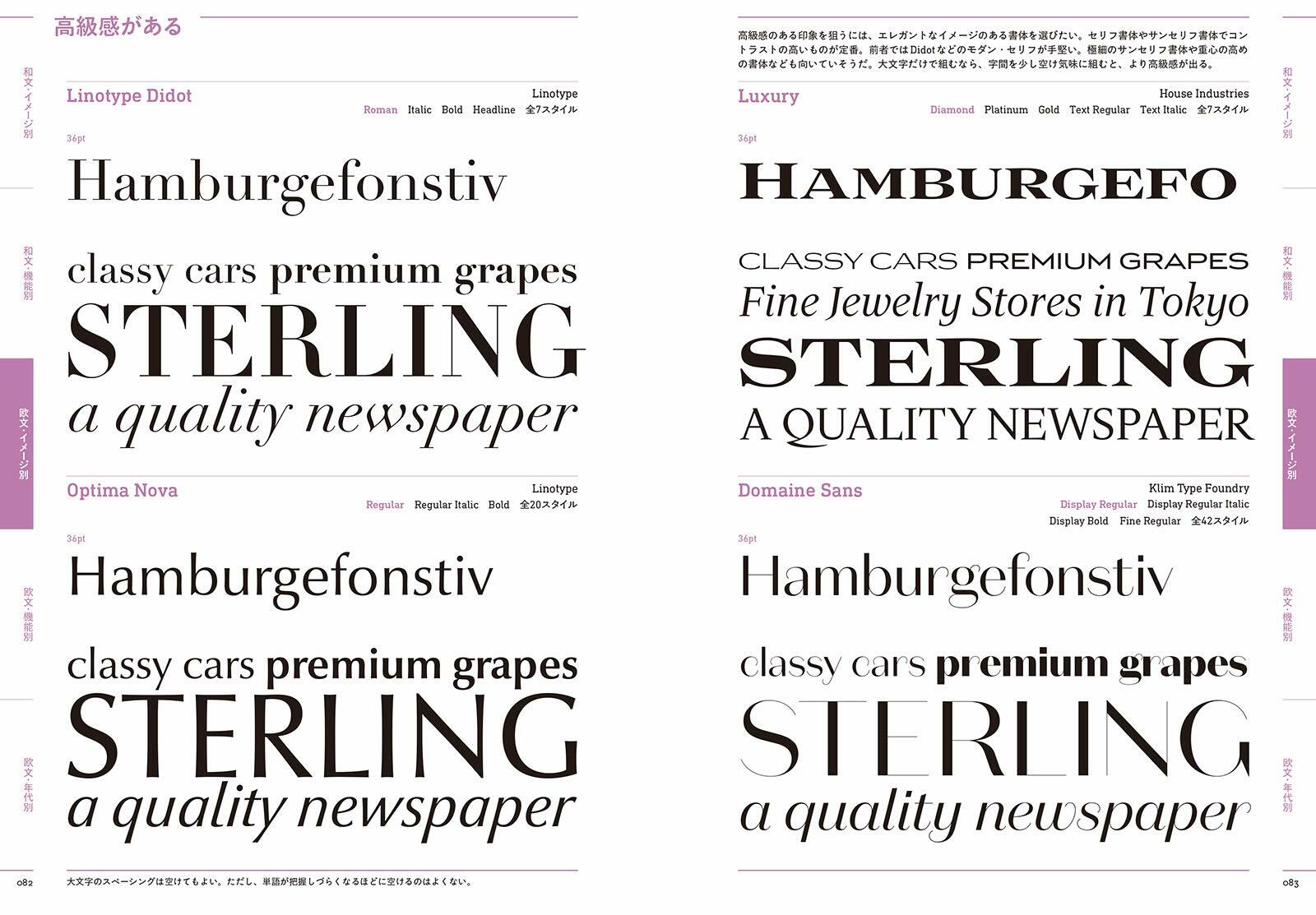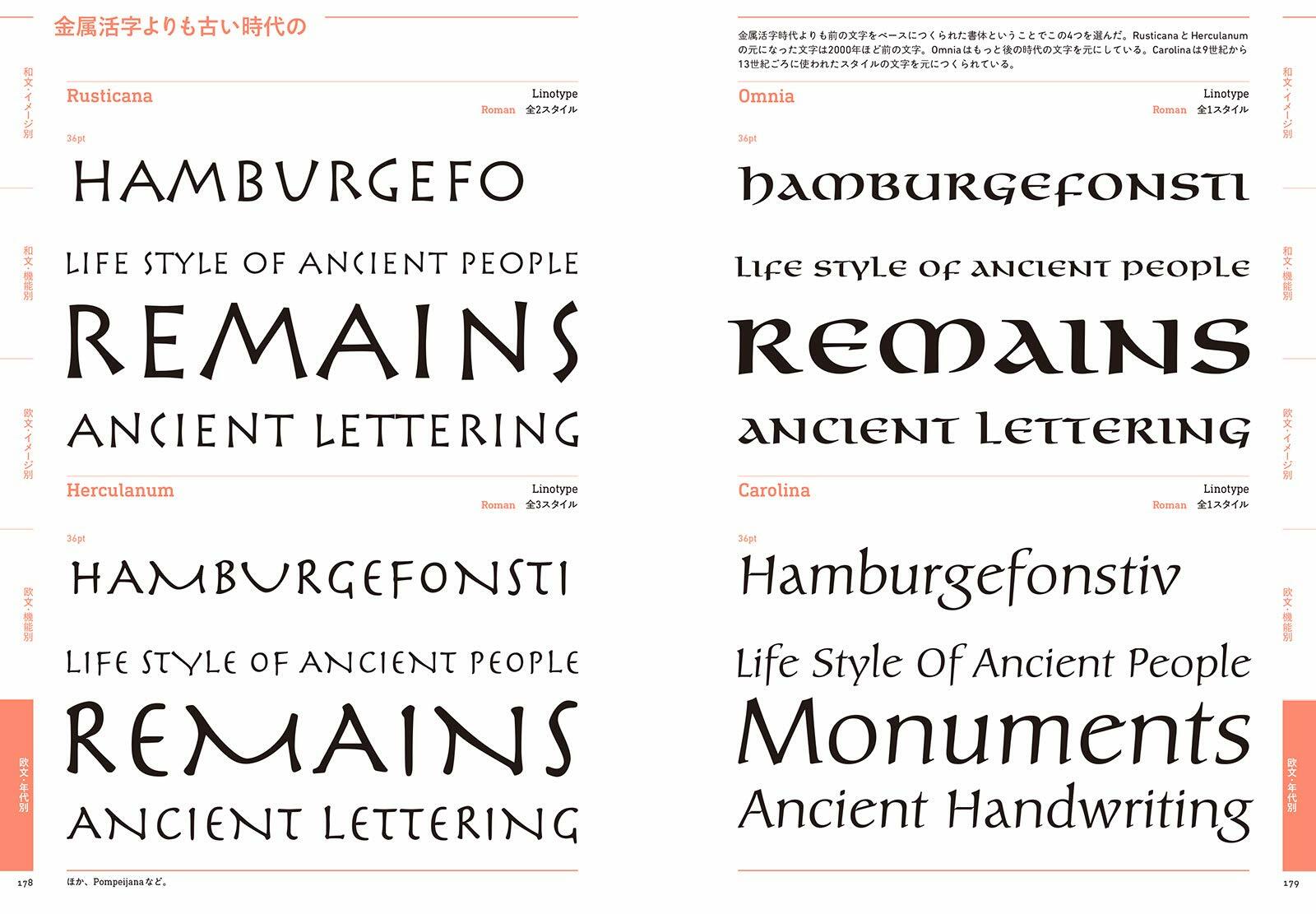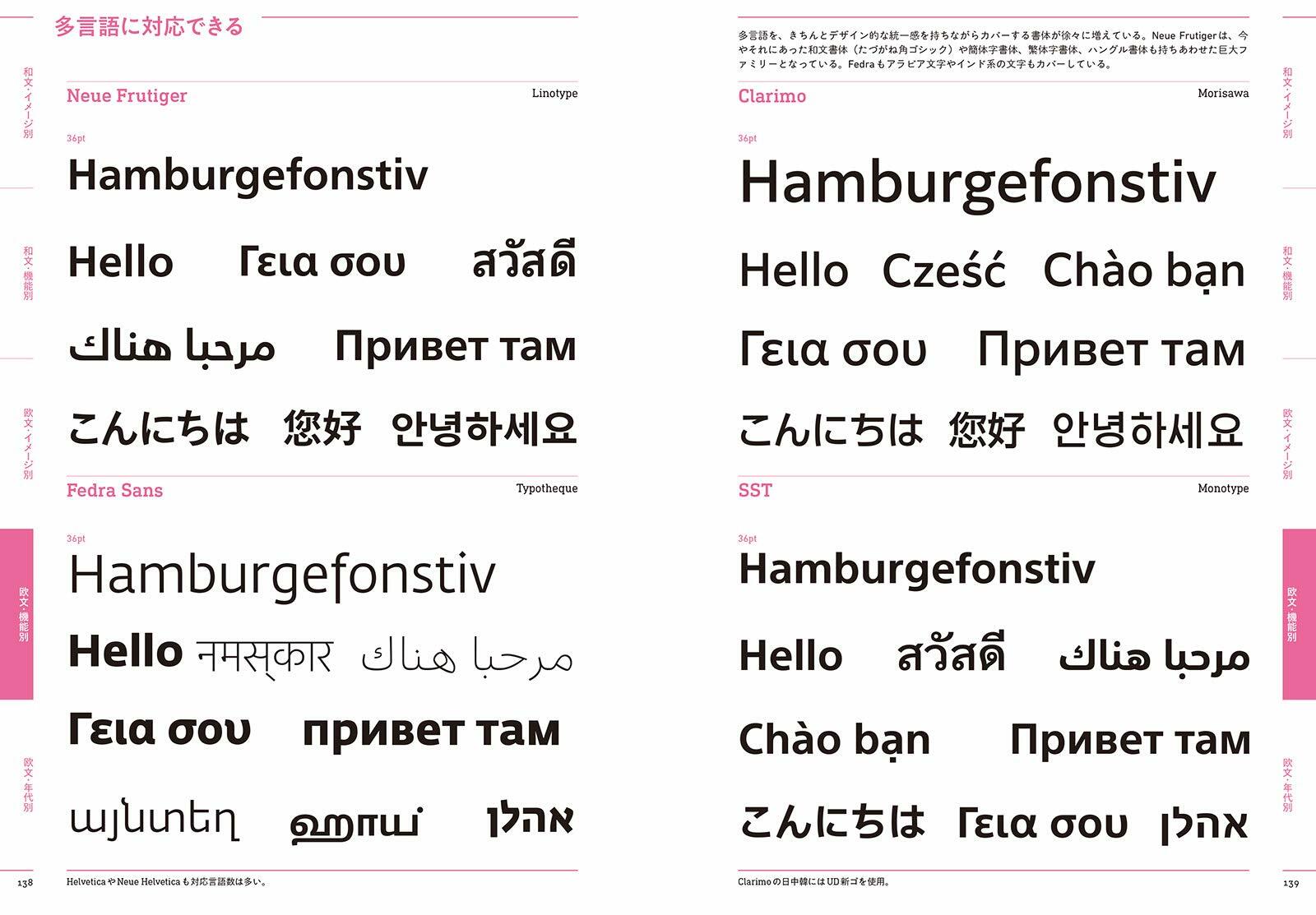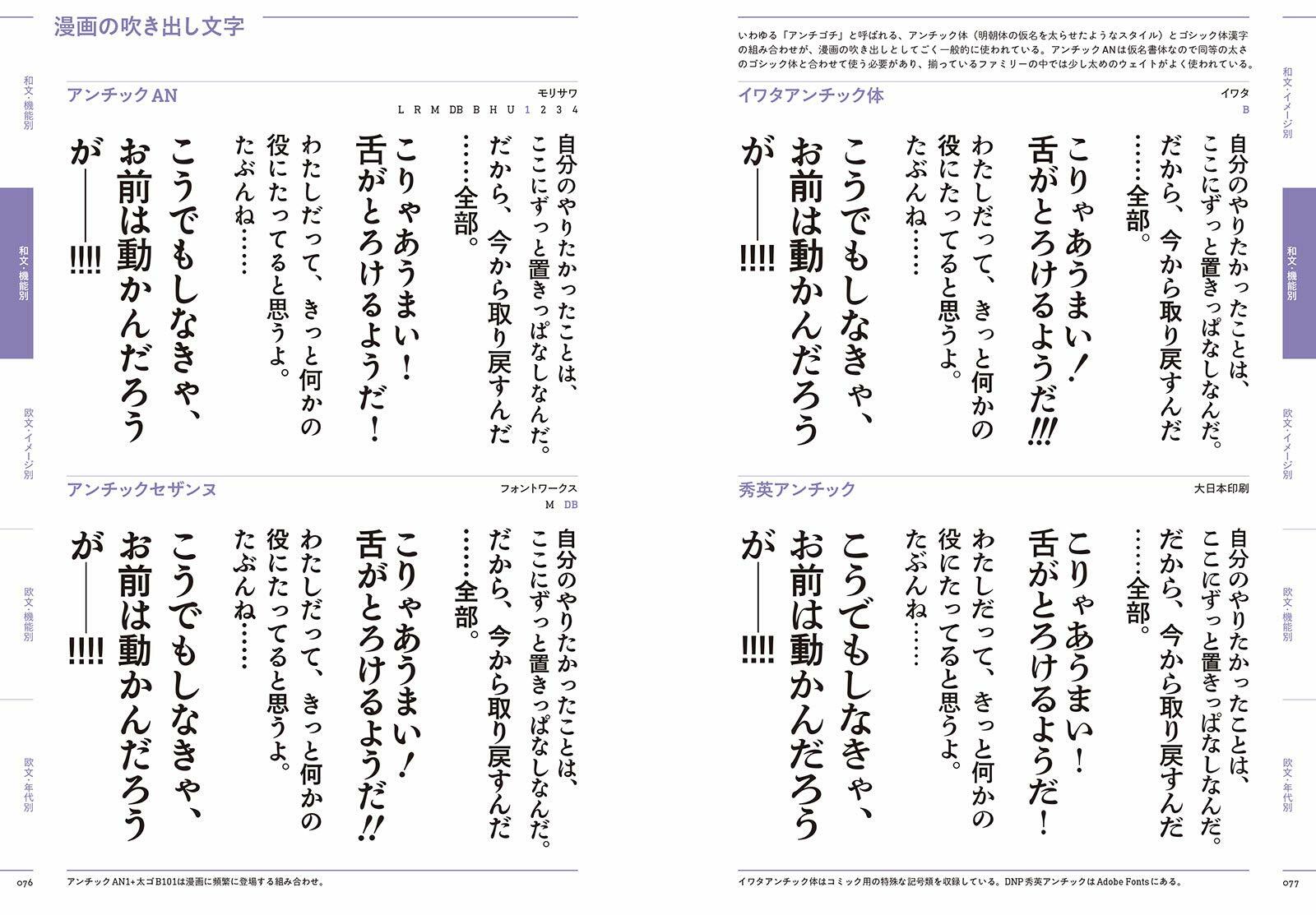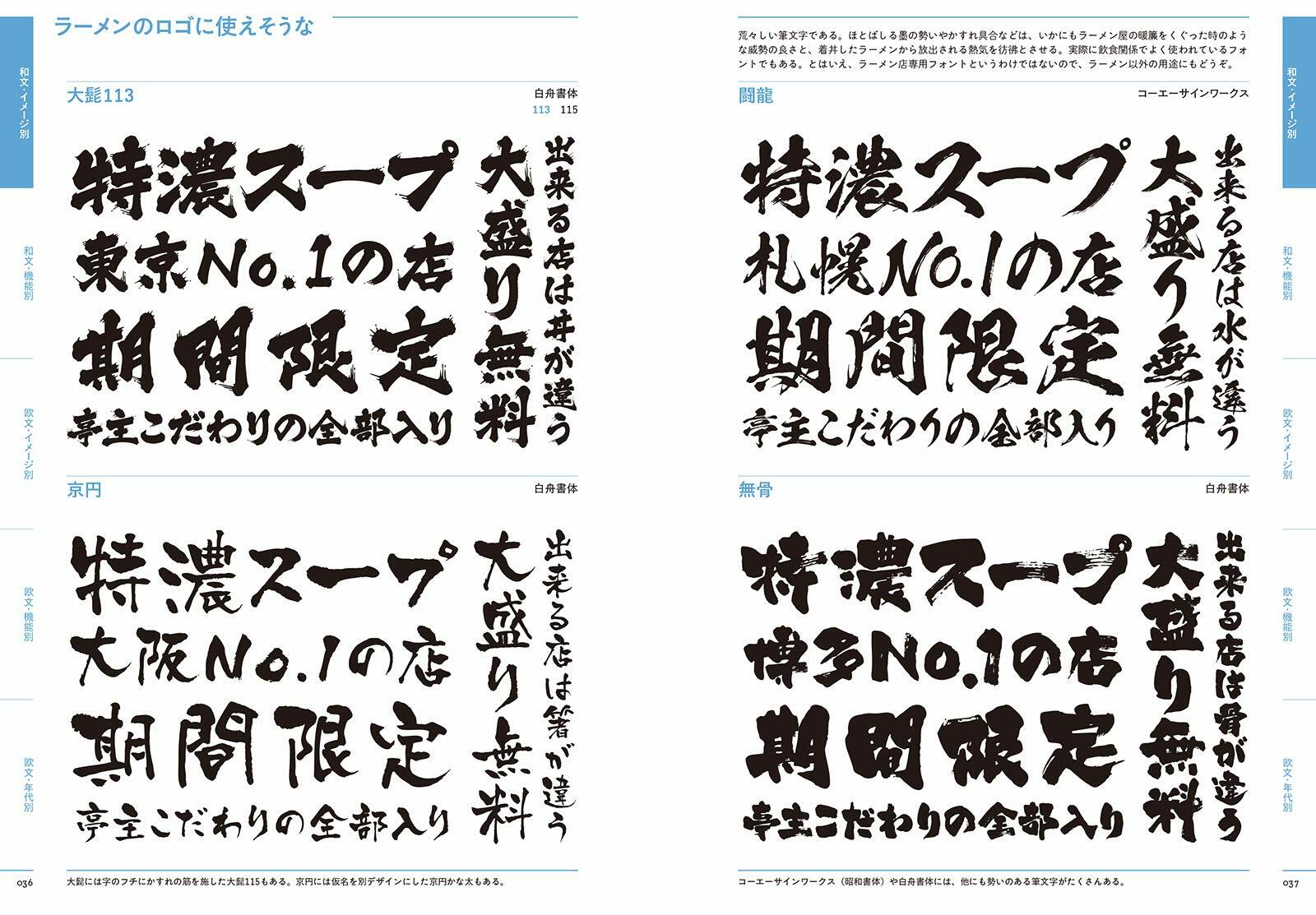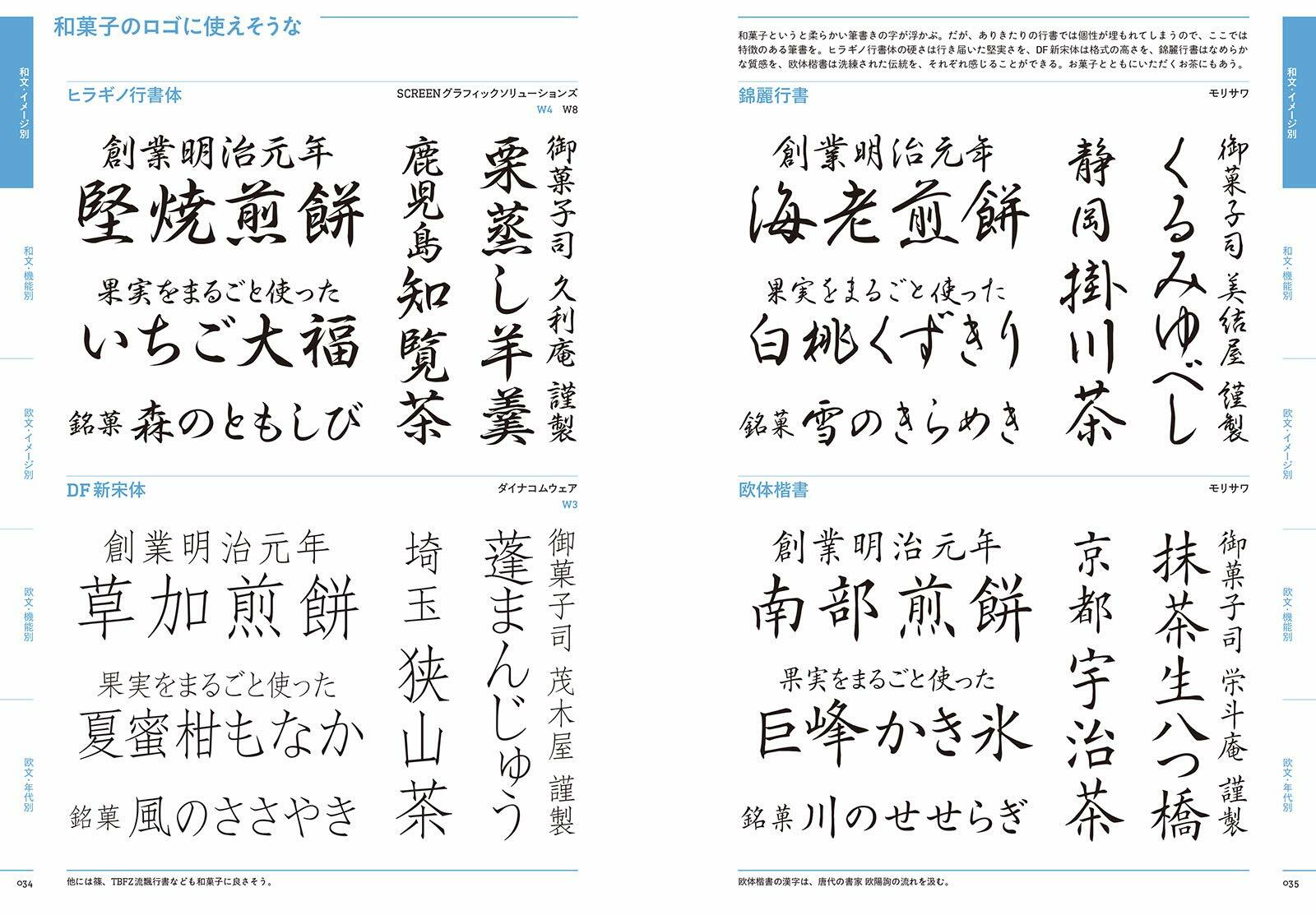
Font sample book to search for by purpose
A typeface sample book that allows you to search for fonts for various purposes, such as "I want to give a sense of luxury" and "I want to use it for Japanese sweets packaging".
Purposes are classified into 100 items such as by image, function, and age. 4 typefaces are picked up for 1 page spread and 1 item, and usage samples are posted according to the image.
About 400 Japanese and European fonts are posted. When you think "I want a font with such an image", you can quickly access the font as you imagined.
The typeface selection and sample production are handled by the production members of the character design website typography-mag.jp. It is a saved version that can be kept at hand and used repeatedly like a dictionary.